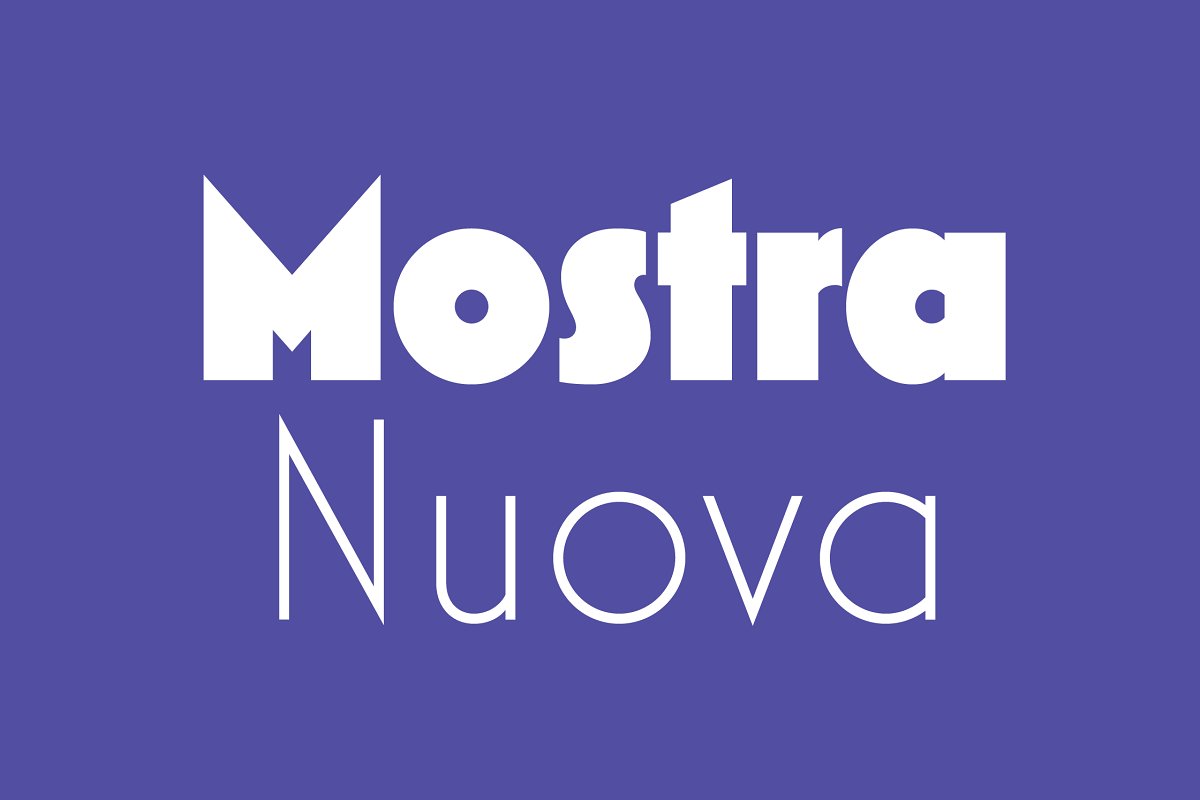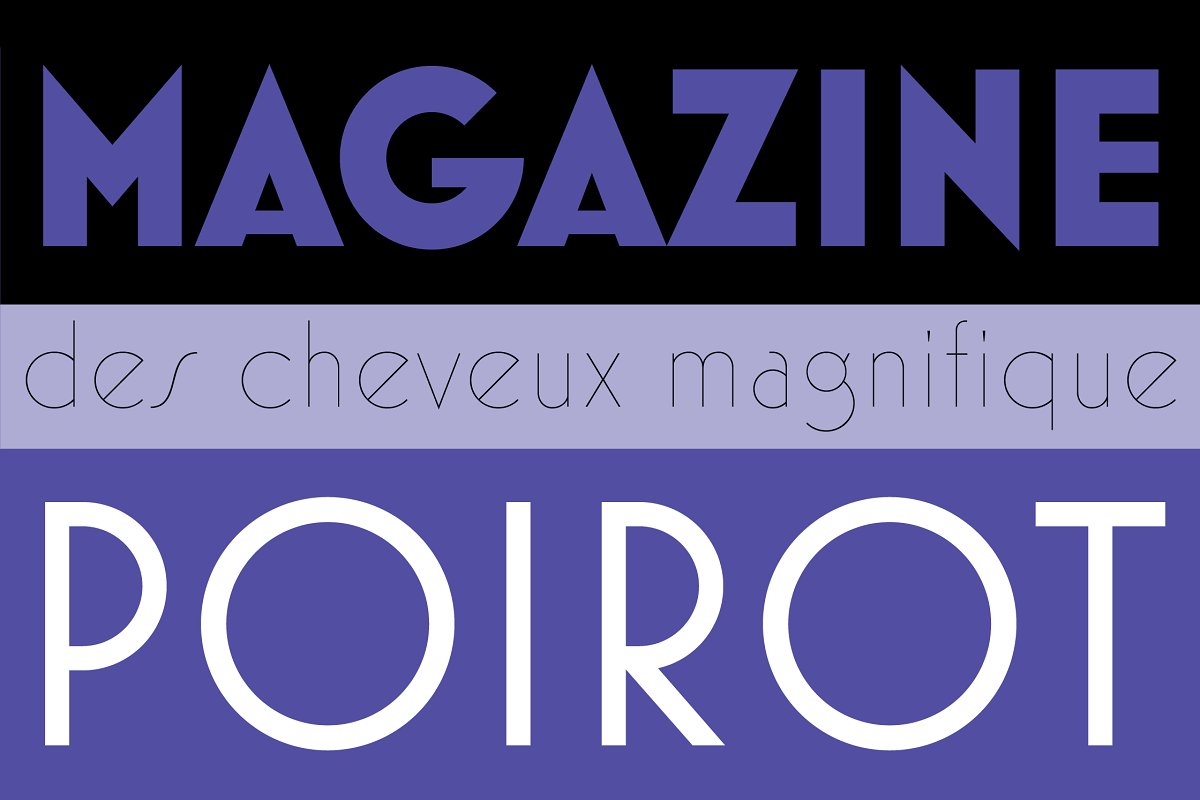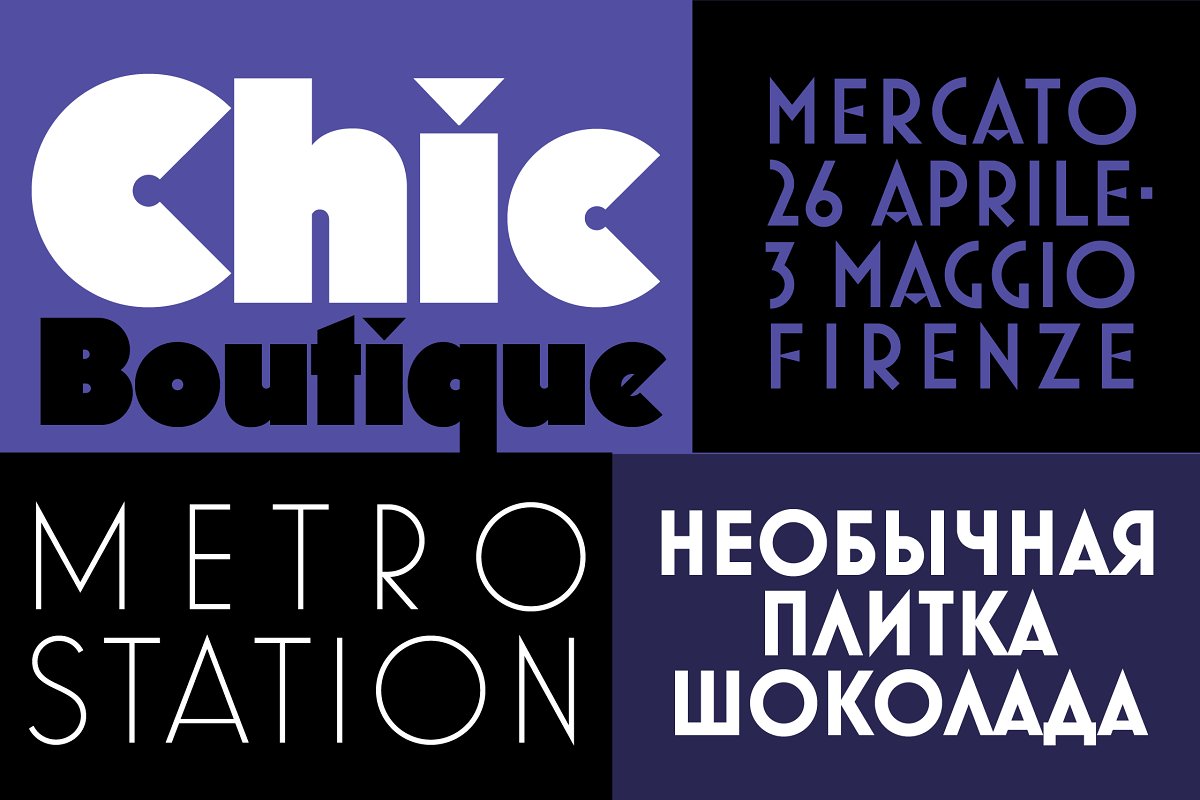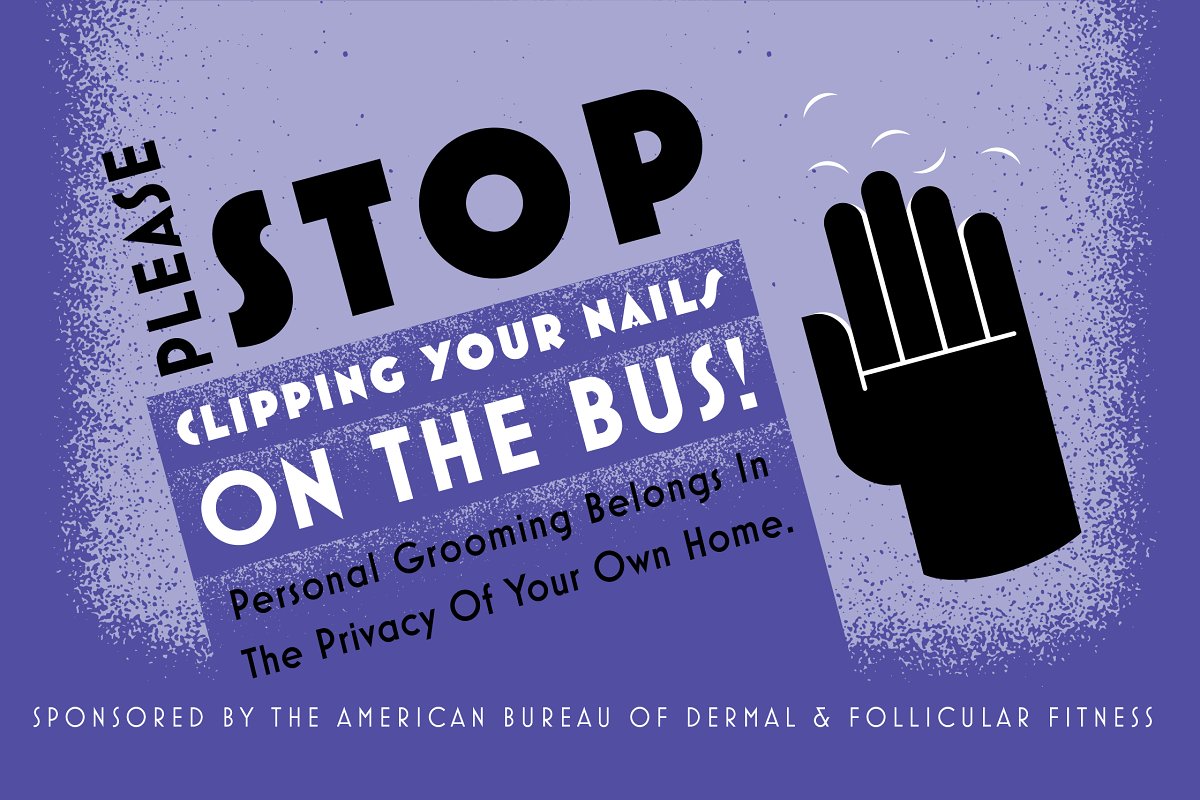
Mostra Nuova (2009) is based on a style of lettering seen on Italian Art Deco posters and advertising of the 1930s, Although it’s very geometric, Mark Simonson made subtle optical adjustments to keep it from looking too severely mechanical, It was first released it in 2001 as Mostra, a caps-only design, Mostra Nuova has more weights, better language support, and lowercase letters
It features dozens of alternate characters providing endless stylistic possibilities within the basic design, from fairly plain to quite stylized, With version 2, 0 (2020), Simonson added three new weights—Semibold, Extrabold, and Extraheavy—, support for Cyrillic, and a new narrow alternate capital D